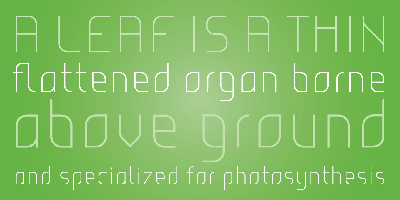
Parity Sans Font is ideal for corporate branding, professional documentation, financial institutions, technology companies, business communications, balanced design systems, and systematic visual communications. This harmonious typeface brings equilibrium and professional clarity to balanced design projects.
Parity Sans Font is exciting because it embodies perfect balance with its mathematically harmonious letterforms that convey equality and systematic precision while maintaining exceptional readability and professional appeal across corporate and technical applications.
The Parity Sans Font family includes comprehensive weight ranges from Light to Bold, each featuring balanced proportions and systematic spacing. This harmonious collection provides designers with complete typographic solutions for creating balanced and professional design systems.
Parity Sans Font Free Download offers designers access to a systematically crafted typeface that represents the pinnacle of balanced typography and systematic design excellence. This harmonious font features precisely engineered letterforms with mathematically perfect proportions that ensure exceptional visual balance and professional consistency across all applications. The typeface showcases systematic construction with balanced character relationships that enhance corporate communications while maintaining reliable functionality and broad accessibility. Its balanced character makes it particularly suitable for financial institutions and technology companies that require typography capable of conveying systematic precision, professional equality, and balanced communication. Parity Sans Font delivers consistent performance across various corporate applications while maintaining perfect visual harmony and systematic integrity. The font's balanced design and systematic precision ensure superior results that enhance professional communication effectiveness while providing users with a harmonious and reliable typographic experience that reflects organizational balance and systematic excellence in contemporary business environments.